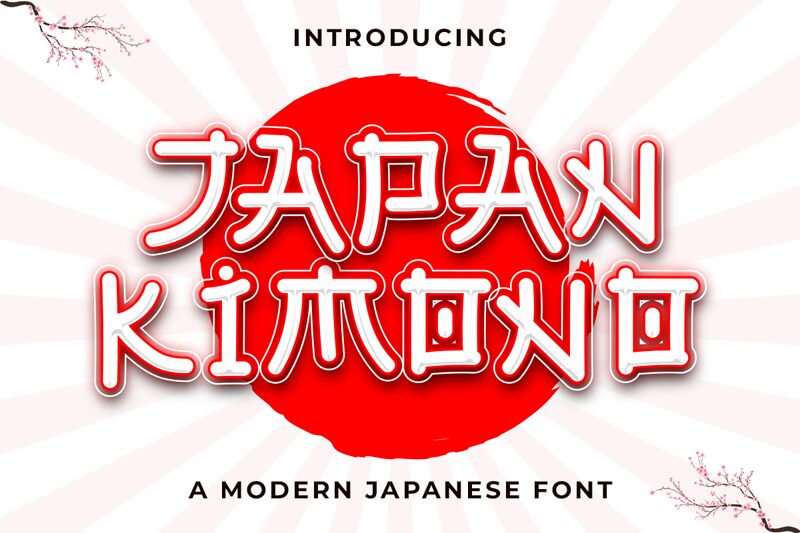
Japan Kimono font by Kong Font is a free font inspired by Japanese characters and overall culture. A contemporary approach is present in this design with its geometric lines and shapes as it tries to capture the traditional essence with a modern edge at the same time. It has a bold presence to ensure visibility in various graphic projects.
Japan Kimono is intended for branding and graphic design works where minimal content is required. You can use it for logos, business cards, packaging design, headings, posters, promotional brochures, and websites. Other design concepts include art books, invitations, social media posts, and magazines.